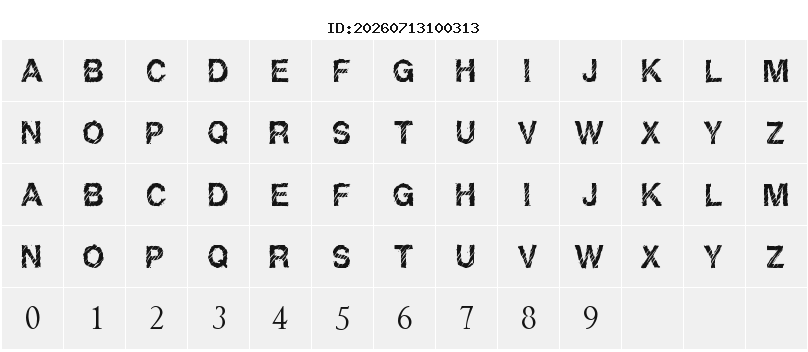
About Raptor.ttf
Raptor.ttf is a modern, elegant sans-serif font designed for ultimate readability and visual harmony. Perfect for branding, headlines, web design, and print materials.